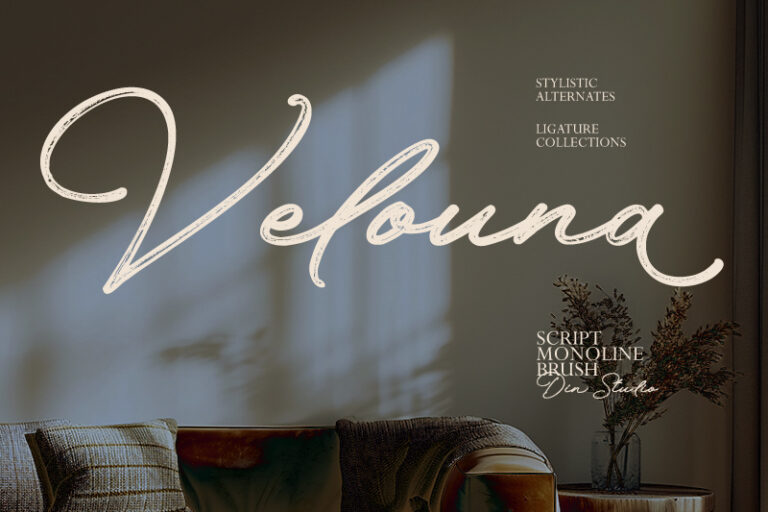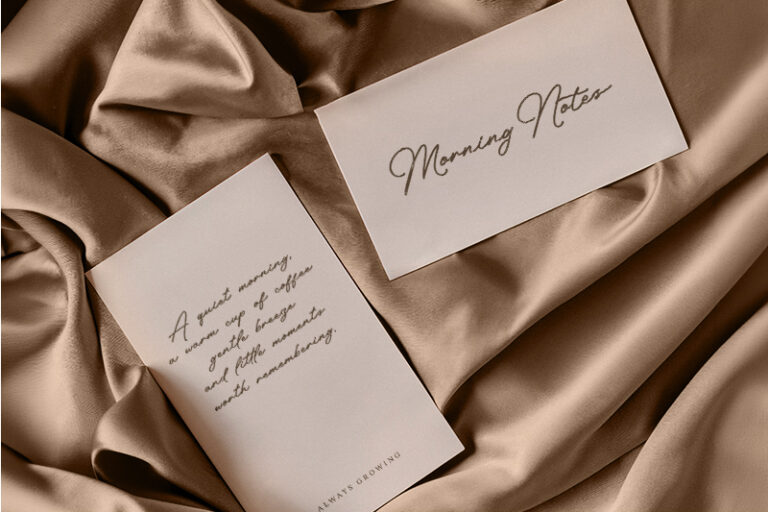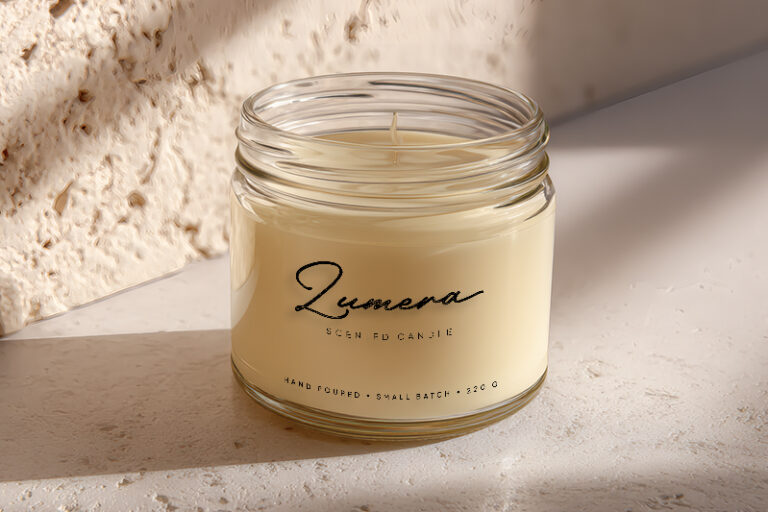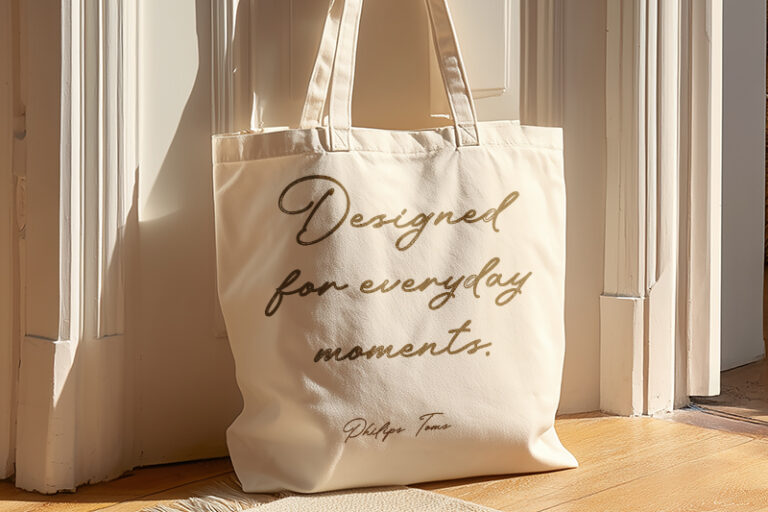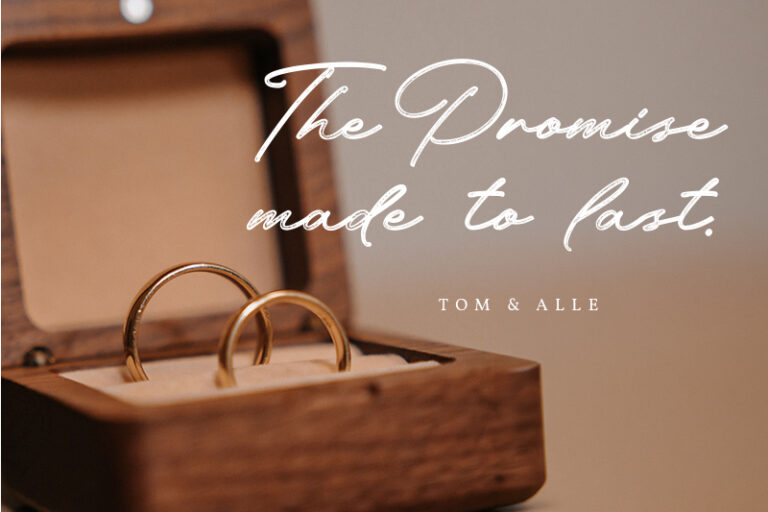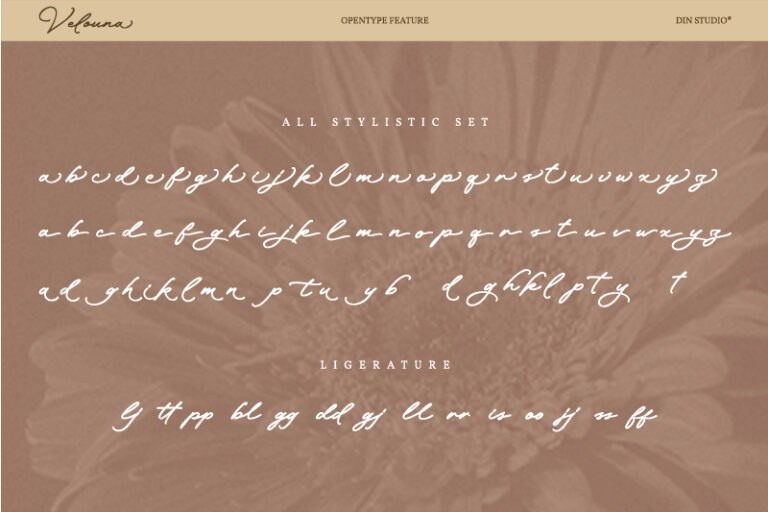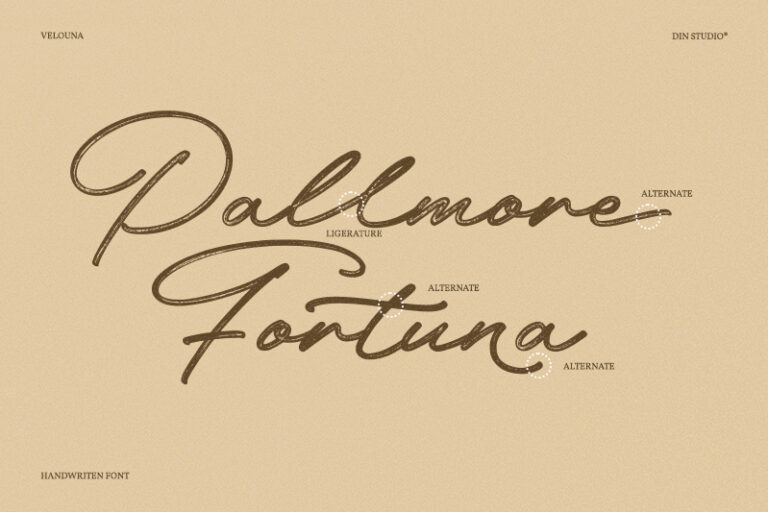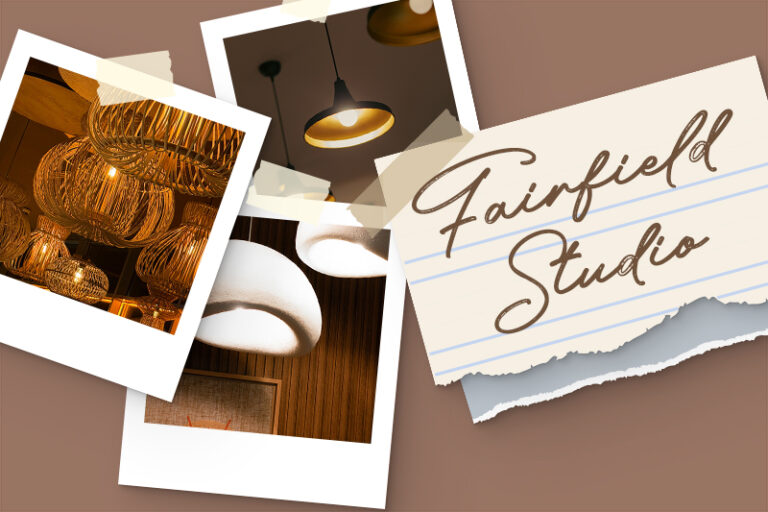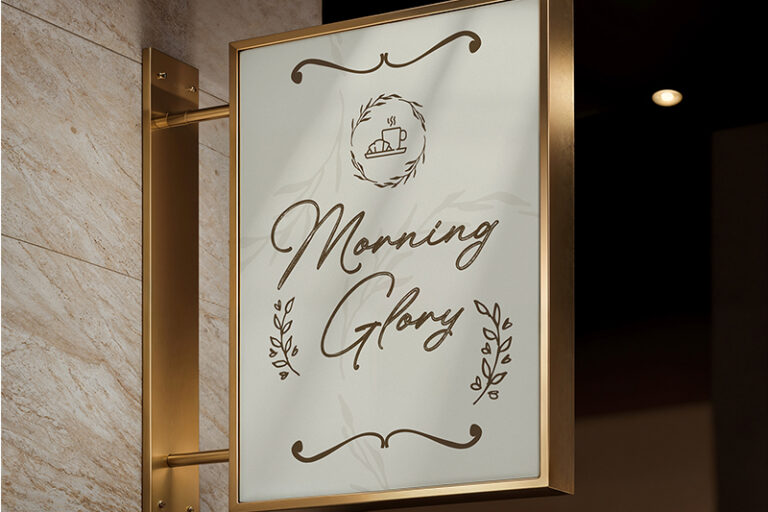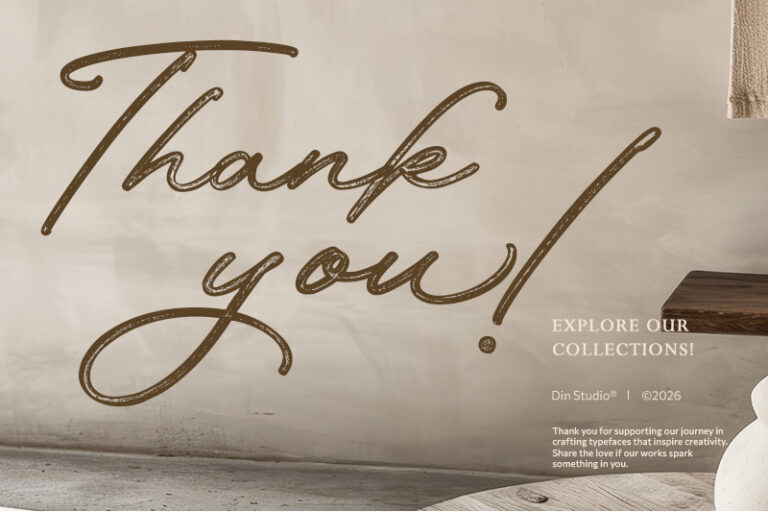
Vellouna – Monoline Brush Script Font
Velouna
Velouna is a beautifully crafted monoline brush font that combines effortless elegance with the natural charm of handcrafted lettering. Designed with smooth, connected letterforms and a refined brush style, Velouna delivers an authentic handwritten appearance that feels both modern and timeless. Its flowing strokes and carefully balanced structure make it an excellent choice for designers who want to add warmth, personality, and sophistication to their creative work. In addition, enjoy the features here.
- Ligatures
- Stylistic Sets
Velouna fits in invitations, logos, quotes, name cards, branding, posters, and many more designs. Find out more ways to use this font by taking a look at the font preview.